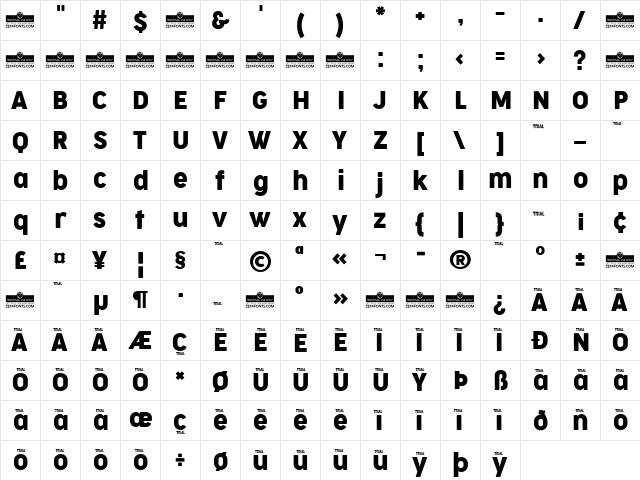
Cocogoose Narrow Trial Regular
| Foundry | Zetafonts |
| Designer | Cosimo Lorenzo Pancini |
Design Context for Cocogoose Narrow Trial Typeface
Cocogoose Narrow Trial takes a measured approach to typography — its balanced proportions and neutral character make it a reliable workhorse for both digital and print work. The condensed width makes it efficient for tight spaces without sacrificing legibility.